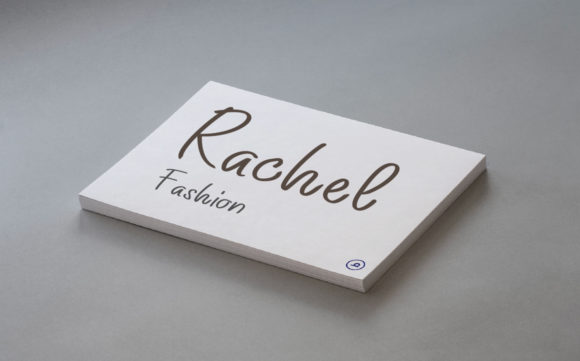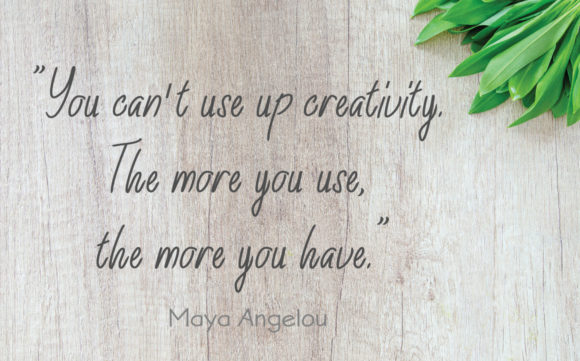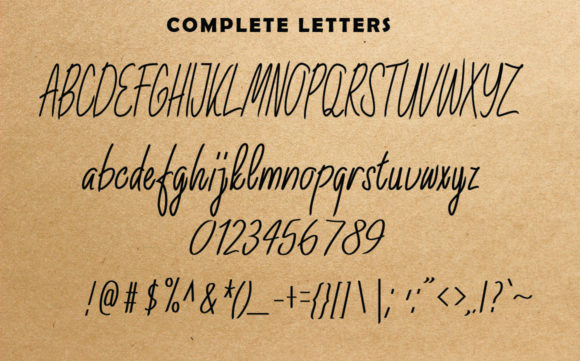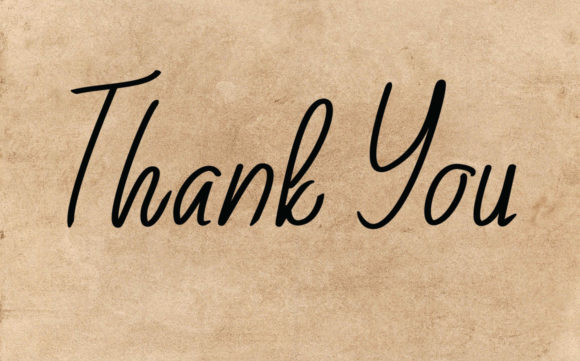
Introduction to Salvinia Font
Have you ever been stuck on a creative project, staring at a blank canvas, desperately searching for that perfect touch? I’m sure many designers have been there. One day, while browsing through design resources, I stumbled upon the Salvinia Font – a delicate and sweet handwritten font that immediately caught my attention. Its elegant touch was just what I needed to bring my project to life.
The Salvinia Font is more than just a design resource; it’s a valuable addition to any designer’s toolkit. With its high-quality design and transparent background, it’s perfect for creating stunning visual effects. Whether you’re working on a personal project or a commercial design, this font is sure to elevate your work to the next level. And the best part? It’s available for free download, making it an accessible resource for designers of all levels.
Key Features of Salvinia Font
- Unique, intricate font design with a transparent background
- Includes a range of characters, including Latin and Cyrillic alphabets
- Perfect for designers looking for a high-quality, unique font for their creative projects
Honest Review: Salvinia Font
I recently had the chance to work with the Salvinia Font, and I must say it’s been a game-changer for my design projects. ✨ This beautiful, elegant font has quickly become a staple in my design toolkit.
- What I love about Salvinia Font is its high quality and versatility. It’s perfect for any creative project that requires a touch of sophistication.
- The font’s transparent background makes it easy to layer and combine with other design elements, giving me endless possibilities for customization.
While the Salvinia Font is an excellent choice for many projects, I did encounter a few limitations. ⚠️ For one, the font’s ligatures can be a bit finicky to work with, and I’ve had some issues with them not displaying correctly in certain situations.
Overall, I’m thoroughly impressed with the Salvinia Font. Its unique design and high-quality features make it a must-have for any designer looking to elevate their creative projects. With a little patience and experimentation, I’m confident that you’ll find it to be an invaluable design resource.
Tips for Getting the Most Out of Salvinia Font
For the best results, use the Salvinia Font in conjunction with other design elements, such as images and graphics, to create a visually appealing composition. You can also experiment with different font sizes and styles to add emphasis and hierarchy to your design.
The Salvinia Font is suitable for a variety of creative projects, including logos, business cards, and marketing materials. Its high-quality design and transparent background make it an ideal choice for designers and non-designers alike.